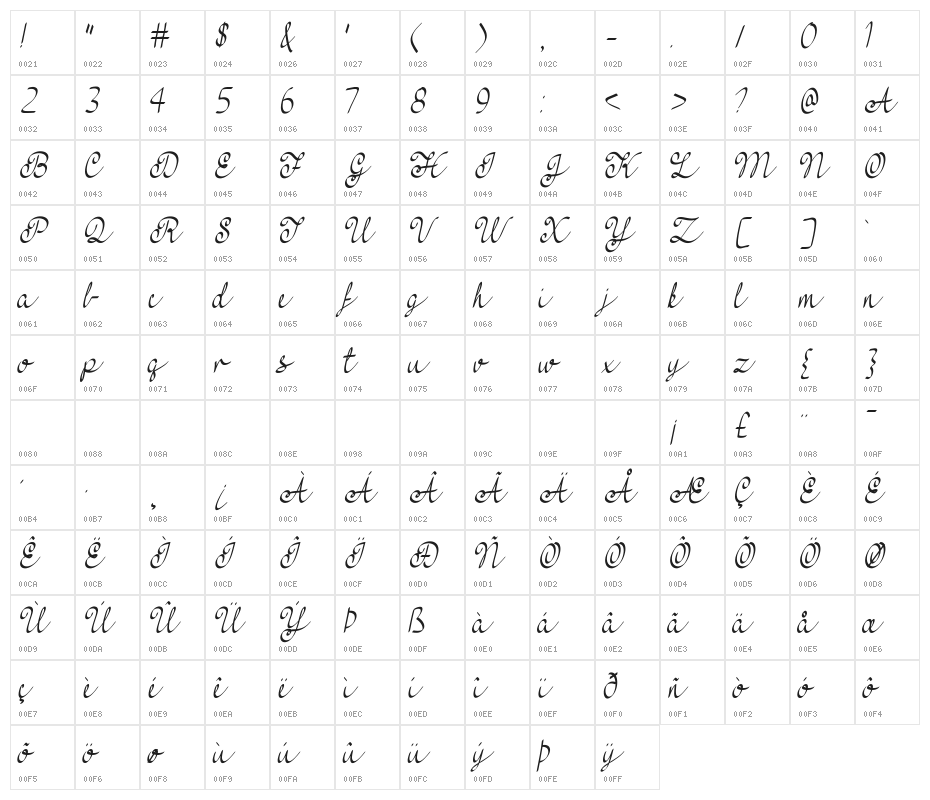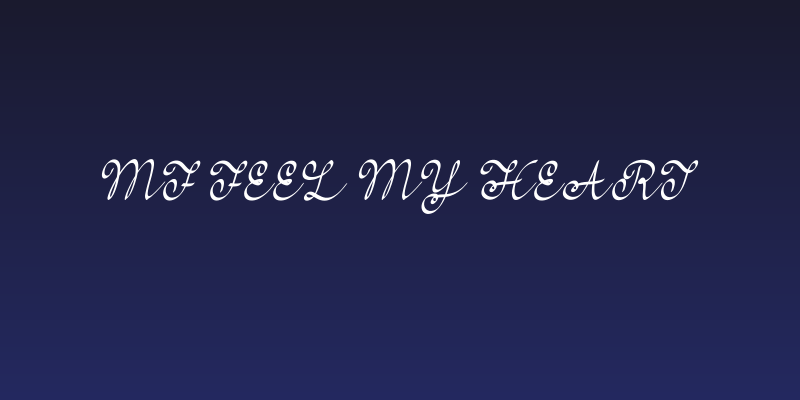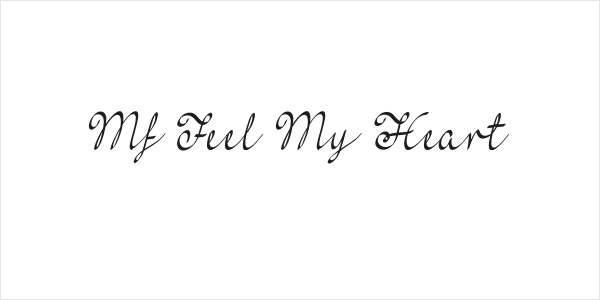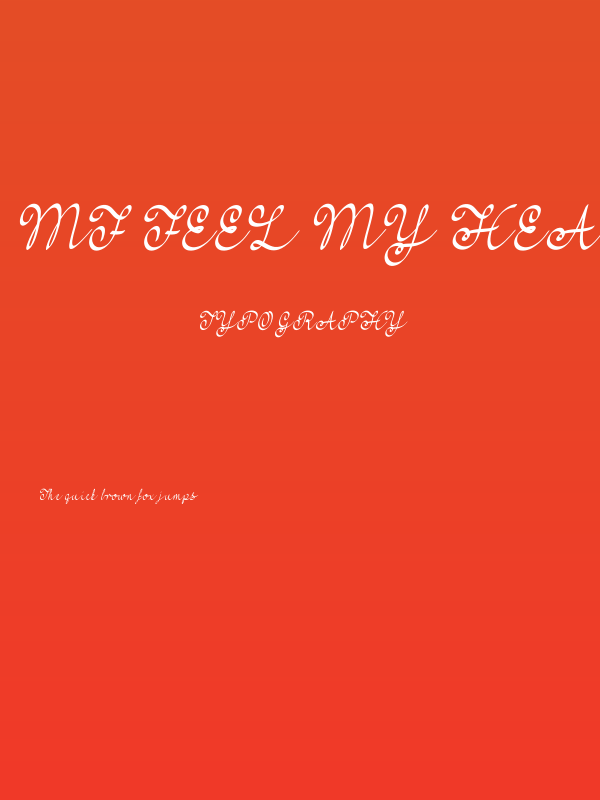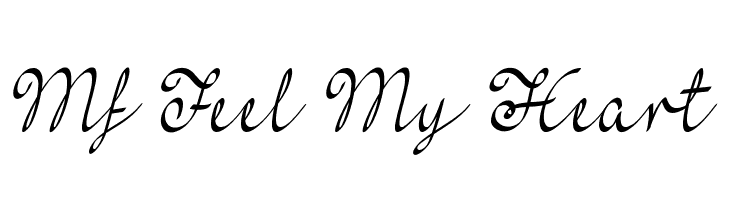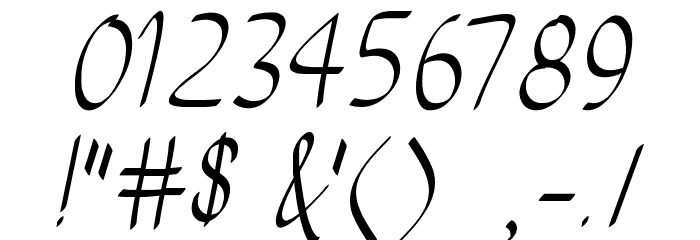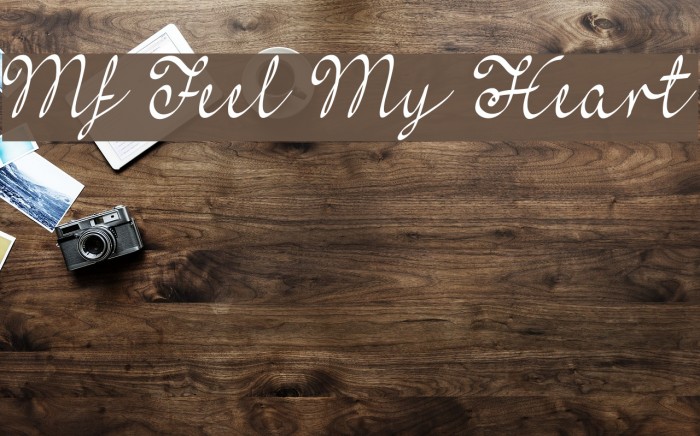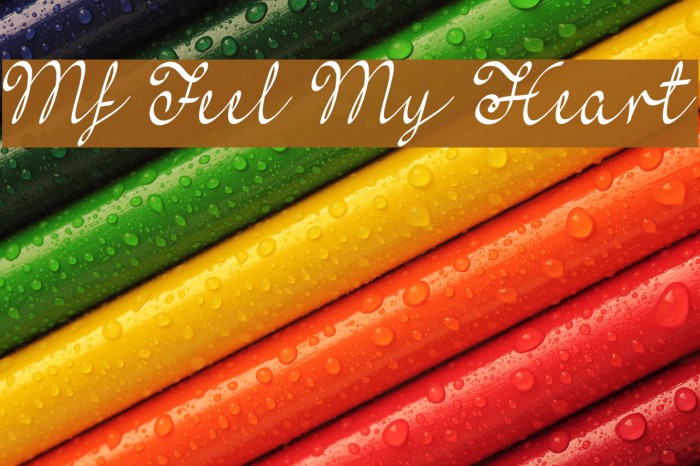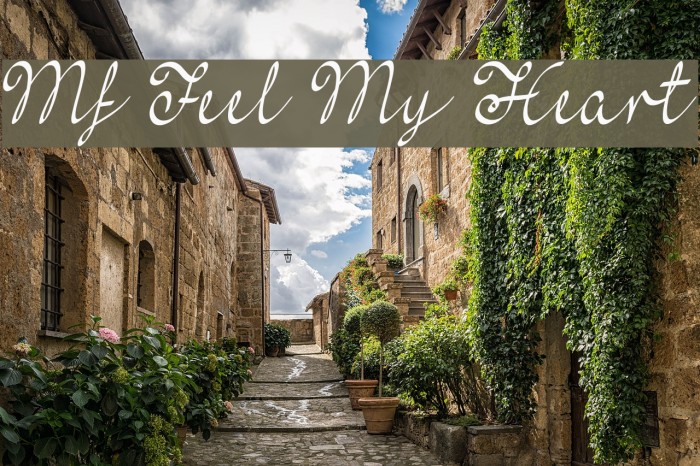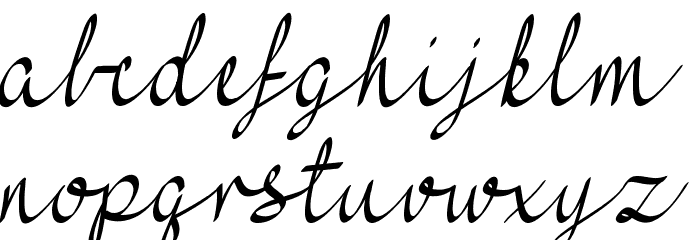
Mf Feel My Heart Font
This elegant script font features a flowing, cursive style with a sophisticated and artistic flair. The uppercase letters are characterized by their graceful loops and swirls, creating a sense of movement and fluidity. The lowercase letters maintain a consistent style, with smooth connections between characters that enhance readability while preserving the decorative nature of the font. The numerals are designed to complement the letters, with a similar cursive style that ensures a cohesive look. Special characters are thoughtfully integrated, maintaining the overall aesthetic. This font exudes a sense of romance and elegance, making it ideal for projects that require a touch of sophistication.
| Overall Style | Elegant, Romantic |
| Use Case | Logos, Invitations, Greeting Cards |
| Proposed Projects | Ideal for wedding invitations, elegant branding, romantic greeting cards, and sophisticated packaging designs. |